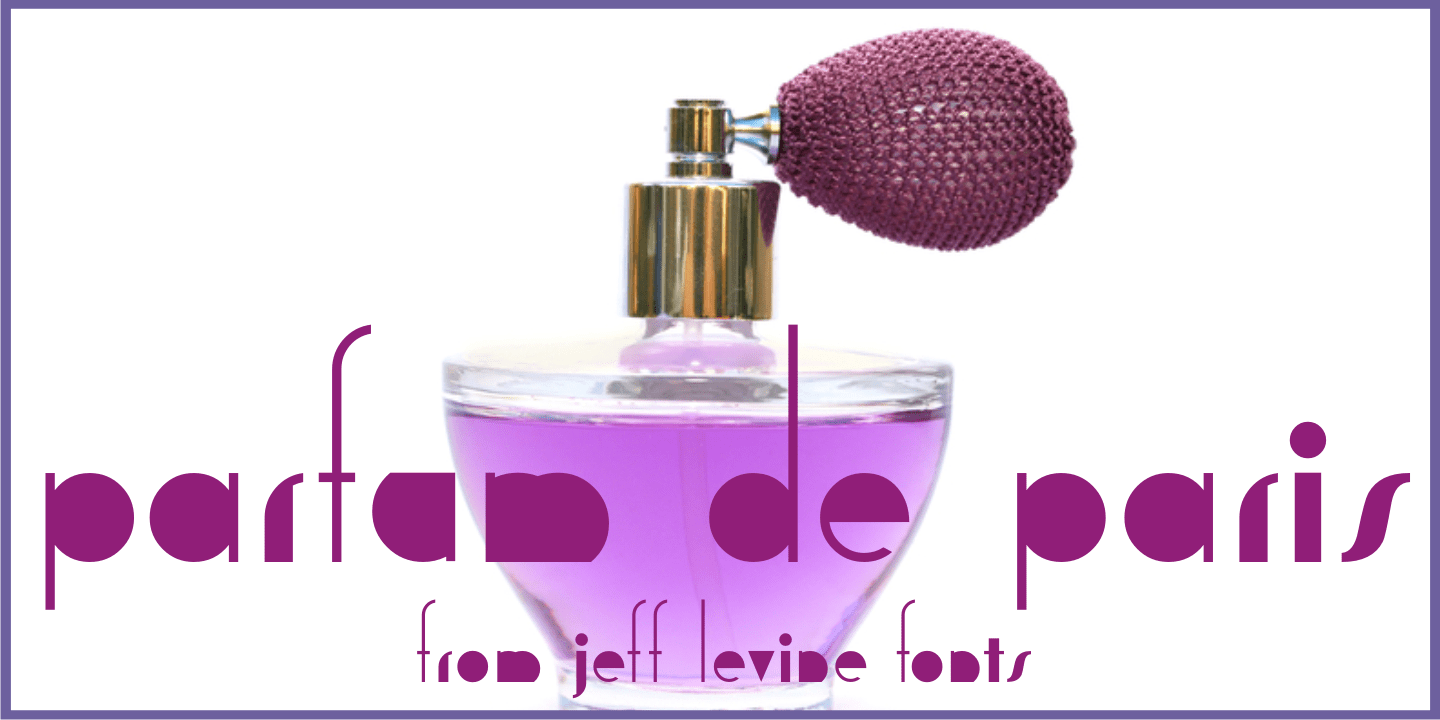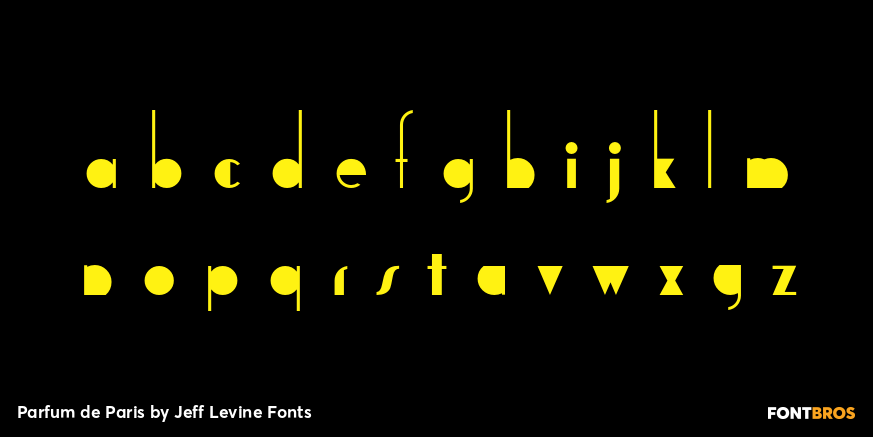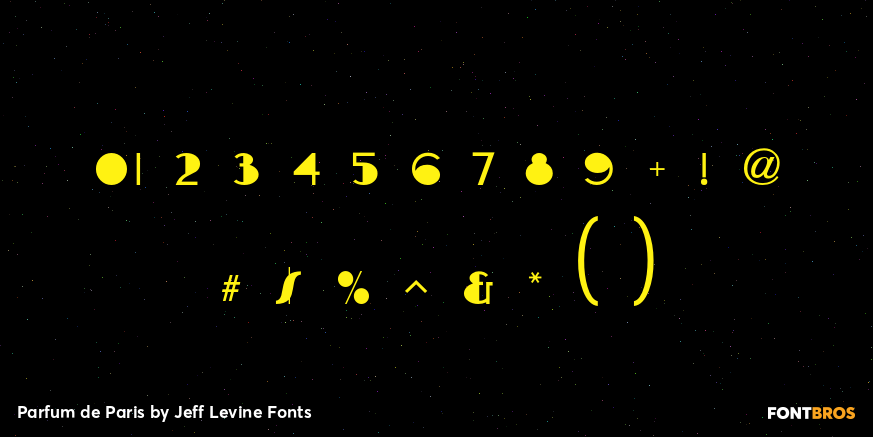
Parfum de Paris
Buy NowParfum de Paris JNL is an all lower case Art Deco-inspired design that features counterless letters in a thick-and-thin style reminiscent of 1930s text styles. Casual and at the same time elegant, this font is perfect for perfume labels, menu headings and other 'stylish' titling evoking the look and feel of the 'Streamline Era'. Font Styles: